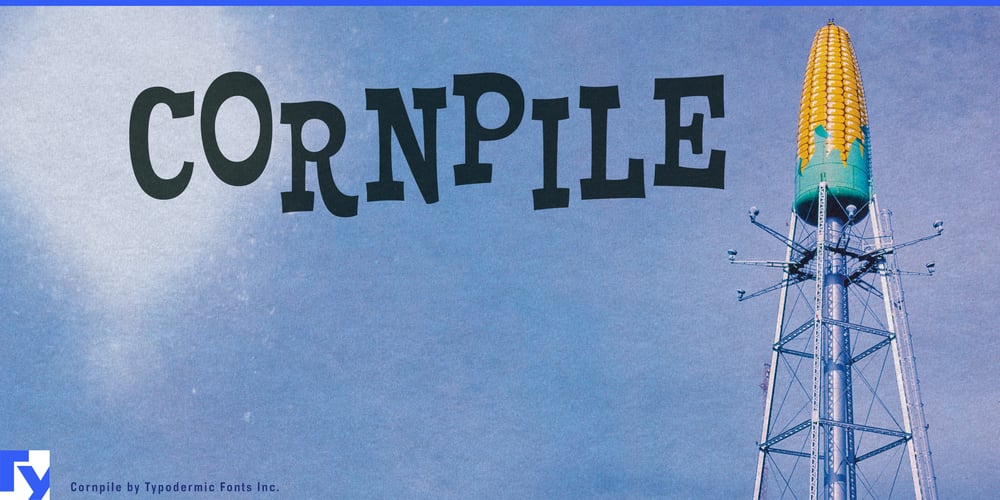
Cornpile Font Family was designed by Ray Larabie and published by Typodermic. Cornpile contains 12 styles and family package options. Get ready to harvest a bumper crop of creativity with Cornpile, the slab-serif typeface that’s as wholesome and fun as a summer day in the cornfields! This quirky, cartoon-inspired font doesn’t just grow on you—it pops right off the page, adding a kernel of joy to every design it touches.Cornpile’s charm lies in its ability to bring a smile to any project. In OpenType-savvy applications, watch as letters and numerals bounce with glee, infusing your text with an irresistible zest for life. With six playful weights and matching italics, you have a veritable cornucopia of options to mix and match, ensuring your designs are always fresh and never stale.But Cornpile’s appeal isn’t limited to English-speaking audiences. This typeface is a true global citizen, supporting an impressive array of writing systems. From the rolling hills of Europe to the bustling streets of Vietnam, from the sun-soaked shores of Greece to the vast expanses of Russia, Cornpile speaks the language of fun in over 100 tongues. Whether you’re crafting a poster for a local farmers’ market in Polish or designing a children’s book in Ukrainian, Cornpile ensures your message retains its playful spirit across borders.Imagine the possibilities: a whimsical logo for an eco-friendly popcorn brand, a cheerful headline for a community newsletter, or a series of bouncy, attention-grabbing titles for a children’s educational app. Cornpile isn’t just a font—it’s a mood-lifter, a conversation starter, and a creativity booster all rolled into one.For those who crave even more flexibility, Cornpile Variable is now available at the finest font vendors. This cutting-edge version allows you to fine-tune your typography with precision, creating custom weights and styles that perfectly suit your design needs. Whether you prefer the classic Cornpile or the endlessly adaptable Cornpile Variable, you’re sure to find the perfect fit for your project.So why settle for bland when you can have grand? Let Cornpile be the secret ingredient that takes your designs from ordinary to extraordinary. It’s time to embrace the fun, celebrate the quirky, and let your creativity pop like never before. Download Cornpile or Cornpile Variable today and watch as your projects transform from plain grain to champagne of design. Remember, in the world of typography, Cornpile is always in season!